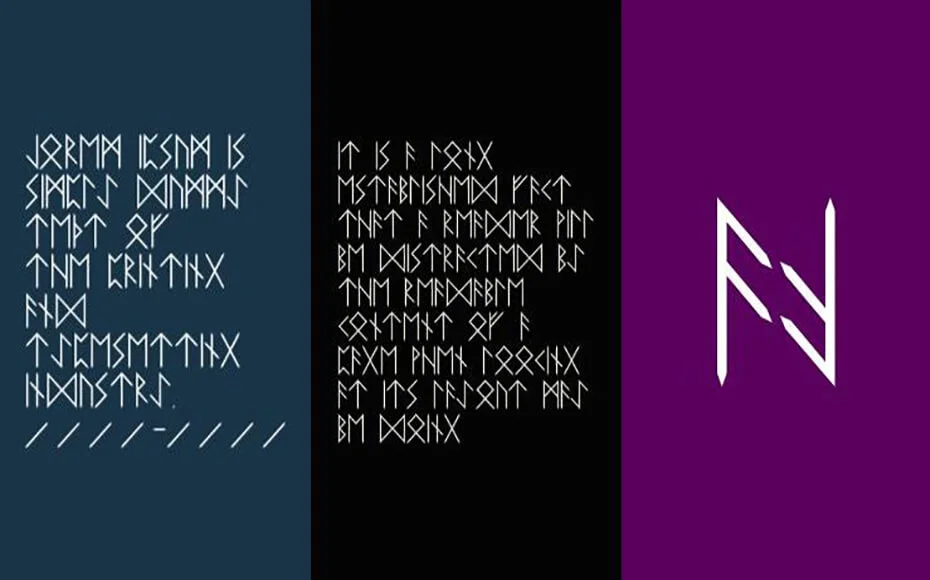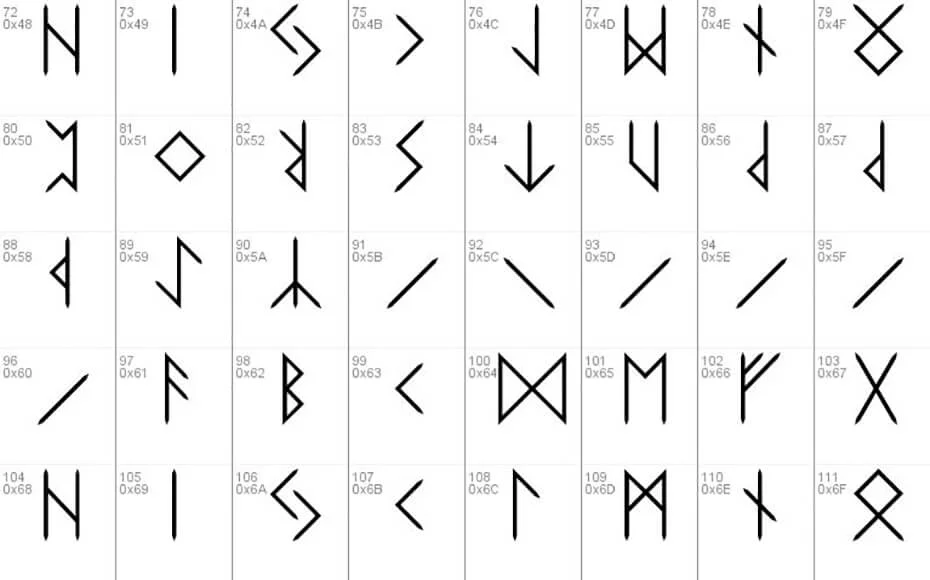
Elder Futhark Font has a geometric style that everyone will fall in love with. Perfect for logos or branding, secret projects, and more.
It has been created by the designer with a new idea and drawn new characters by himself. Its special texture fonts with sharp corners are reinvented.
Because it has nothing to do with the alphabet but it can be used by the alphabet. That’s why this good-quality font falls under the category of dingbat.
Style: | Dingbats, Geometric, Display |
Check out these basic typeface lettering images we’ve attached to this article to get an idea of how this will affect your textual diversity.
You can use it for different designing approaches like designing unique logos, secret projects, tattoos, stickers, book covers, unique emblems, banner ads, brochures, creating book covers, printing objects, game developing, web development, and more.